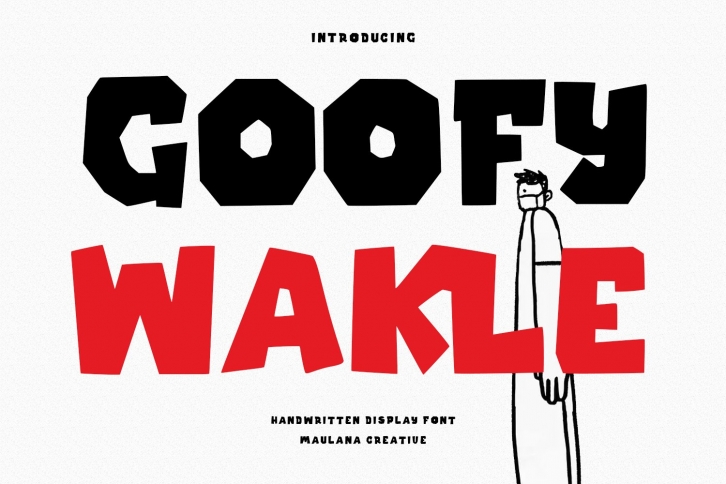
Goffy Wakle Handwritten Display is a trendy and unique font with an authentic style. It was designed by Maulana Creative and it's a great choice for creative people who need such a font. It was released on August 8, 2022 and the file size is 8.14 MB. Goffy Wakle Handwritten Display will add an organic vibe to any design idea!